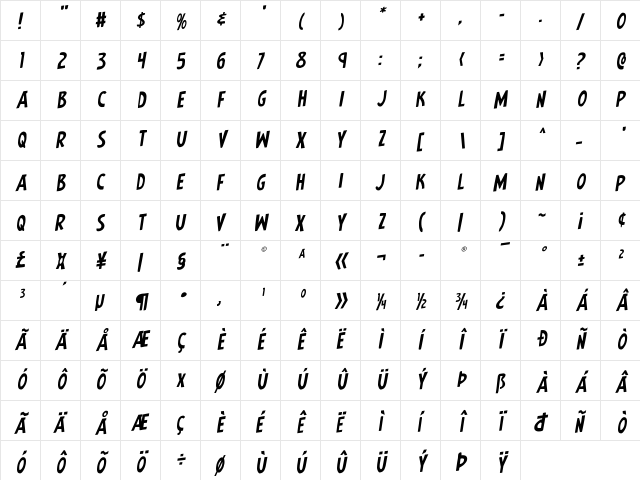
Earth's Mightiest Jumbled Rotalic Italic
Design Context for Earth's Mightiest Jumbled Rotalic Typeface
Earth's Mightiest Jumbled Rotalic is a composed and adaptable typeface that performs quietly and consistently across a wide range of design contexts. The slanted form adds forward momentum and visual energy.
Pro Tip: Use Earth's Mightiest Jumbled Rotalic for emphasis, pull quotes, and subheadings where its slanted energy can add rhythm to the layout.